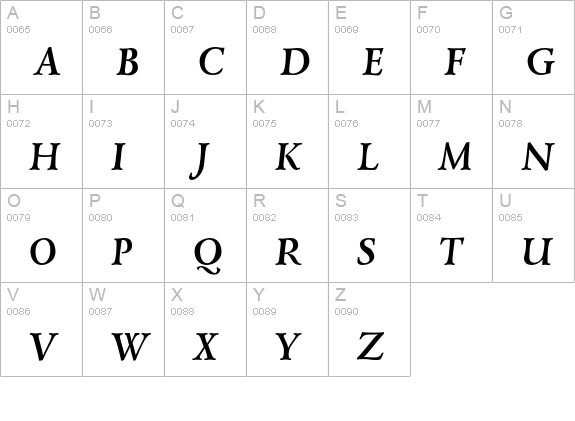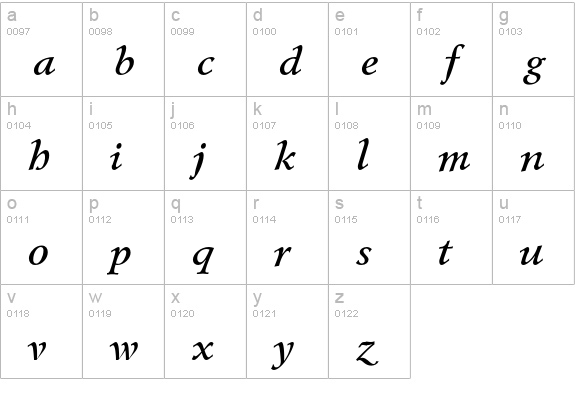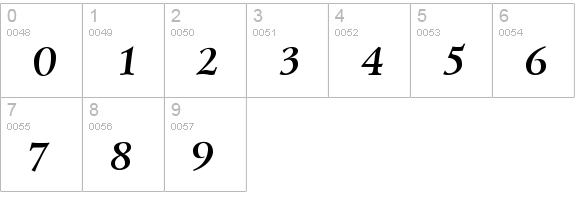
PM Lazurski BoldItalic Cyrillic Font Details
Introducing PM Lazurski BoldItalic Cyrillic font, a captivating and versatile typeface that effortlessly combines elegance with a bold flair. This stunning font is designed to make a statement, whether it's used for headings, titles, or creative design projects. With its unique and distinctive italic style, PM Lazurski BoldItalic Cyrillic font adds a touch of sophistication to any text. Its bold strokes and slightly slanted characters create a sense of movement, making it visually striking and attention-grabbing. The Cyrillic characters of PM Lazurski BoldItalic Cyrillic font are meticulously crafted, ensuring readability and clarity in every letter. Whether you're working on a website, branding, or any graphic design project, this font will add a touch of refinement and elegance. One of the best things about PM Lazurski BoldItalic Cyrillic font is that it is available for free download at FontsMarket.com. This means that you can easily access this exceptional font and use it in your personal and commercial projects without any restrictions. The free availability of this font makes it a valuable asset for designers, writers, and anyone looking to add a touch of sophistication to their work. So, don't miss the opportunity to enhance your designs with the exquisite PM Lazurski BoldItalic Cyrillic font. Download it for free at FontsMarket.com and elevate your projects with its captivating style and versatility.